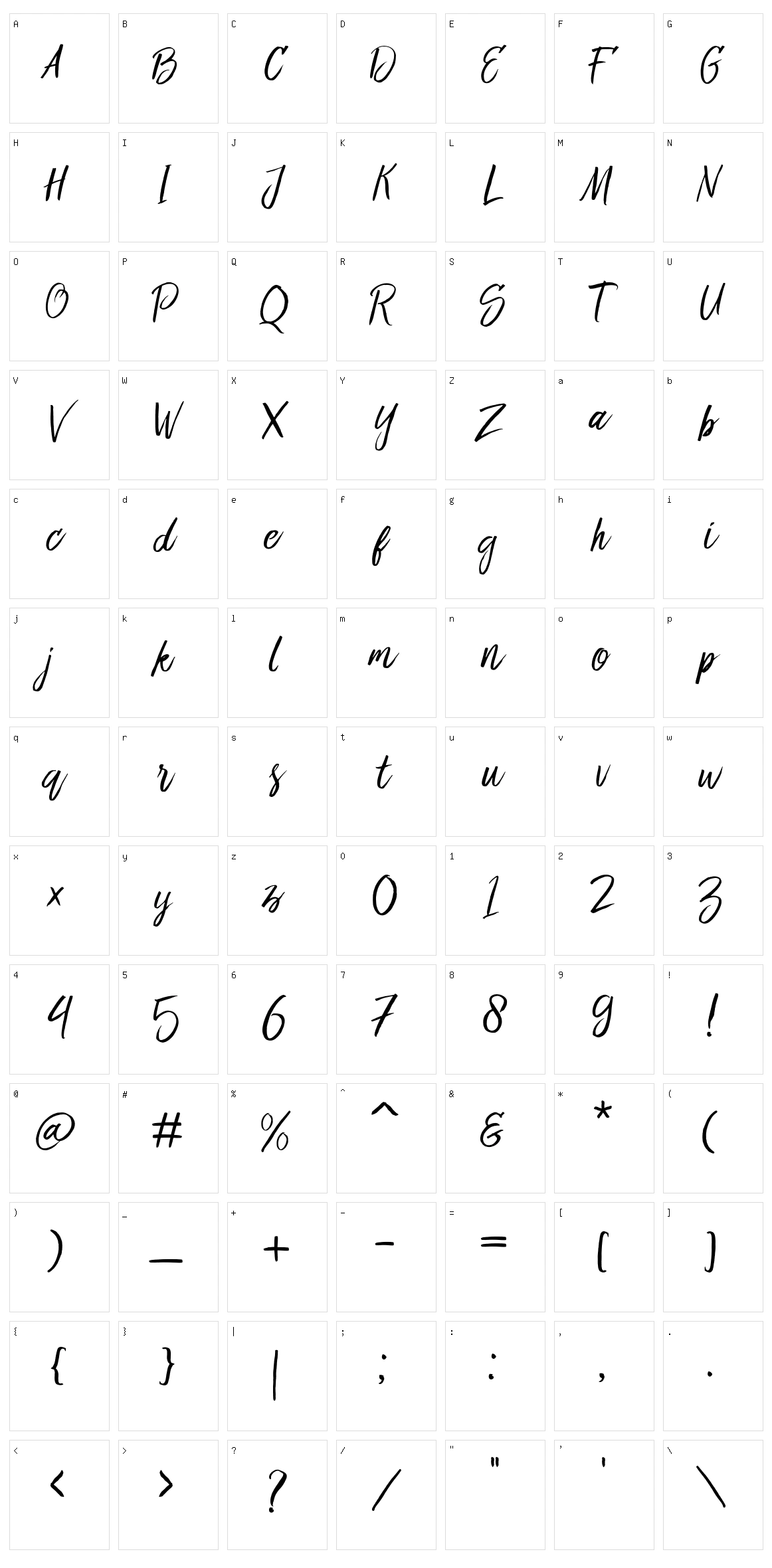
The free font Bringshoot is carefully designed by Yusril Muhtadi, showcasing a thoughtful balance of creativity and usability and falls under the Script font style. When you download the ZIP file, it contains only 247.18 KB of font files, making it lightweight and quick to download. Please review the license details below to understand permitted usage and distribution rights. If license information is not available, we recommend using this font for personal projects only or contacting the author directly for commercial usage permissions.